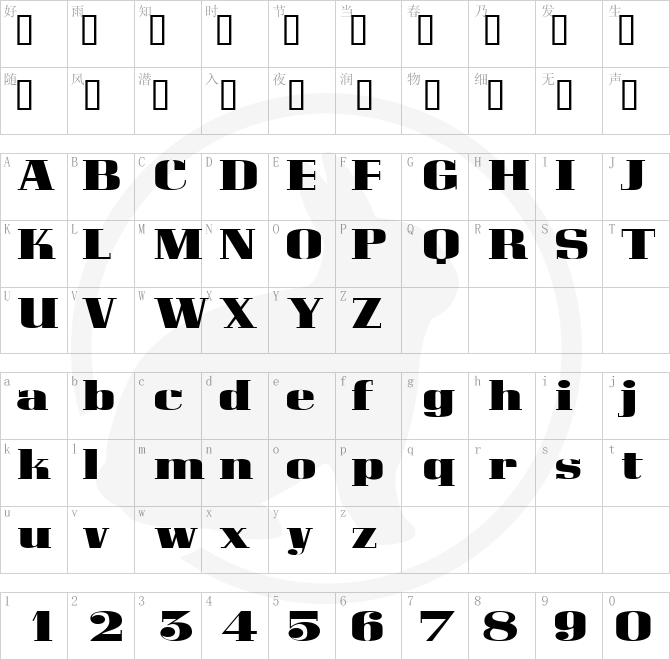
- Font Name:Galaxy
Galaxy-Roman.ttf is a very beautiful artistic font, Galaxy-Roman.ttf is widely used in the design and printing of various books and pictures,Galaxy-Roman.ttf has a strong visual impact,Galaxy-Roman.ttf is a commonly used font in newspapers, magazines and books, and is used in posters, e-commerce Poster design, store design, logo design, font design and other fields.Galaxy-Roman.